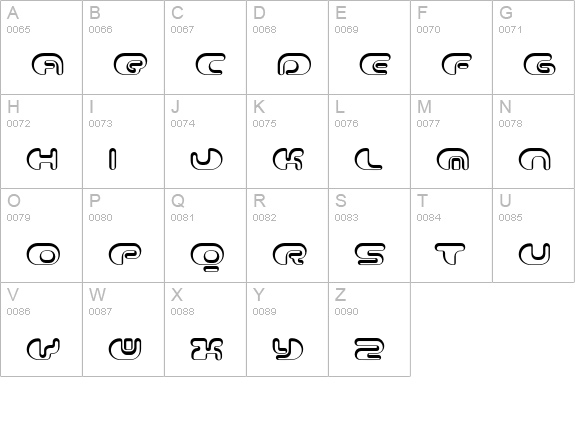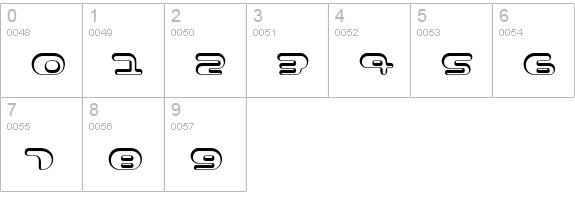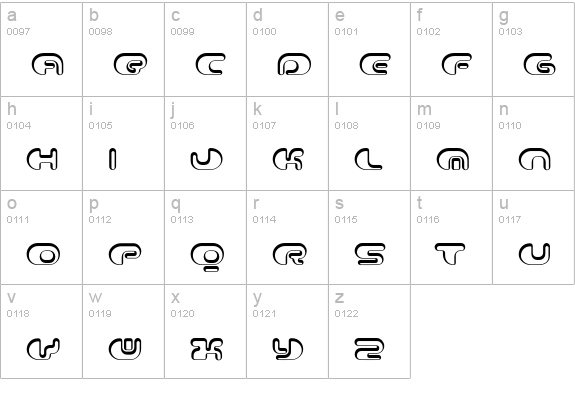
Introducing the mesmerizing Contour-Shaded font, a visually striking typeface that adds depth and dimension to your projects with its unique contour design. This eye-catching font seamlessly blends shadow and light to create a stunning visual impact, making it perfect for logos, titles, and creative designs that demand attention. The Contour-Shaded font is not only visually appealing but also versatile, suitable for a wide range of design applications. Whether you're looking to make a bold statement or add a touch of sophistication to your work, this font has got you covered. Best of all, the Contour-Shaded font is available for free download at FontsMarket.com, so you can start using this captivating typeface in your projects right away. Don't miss out on the opportunity to elevate your designs with this stylish and dynamic font. Download Contour-Shaded today and unleash your creativity!